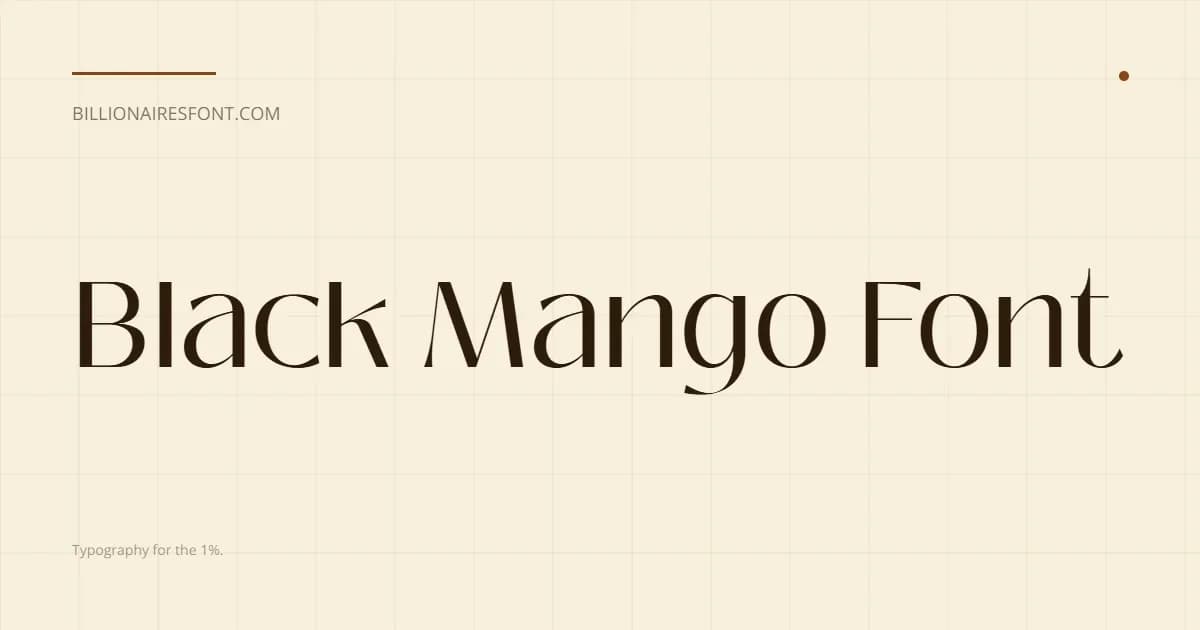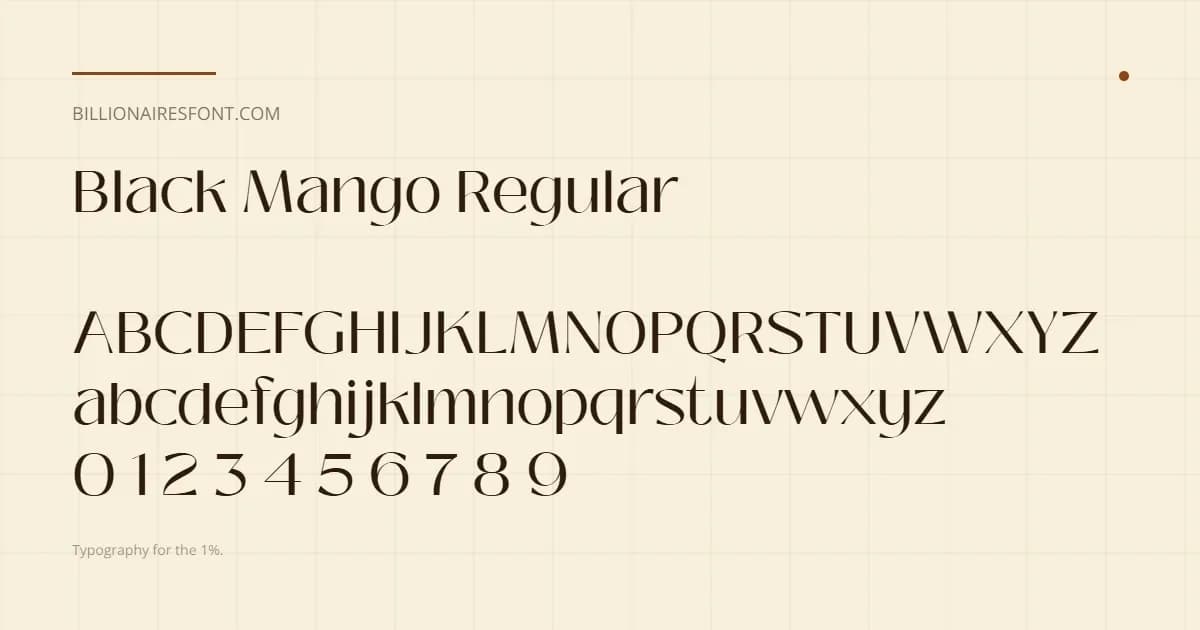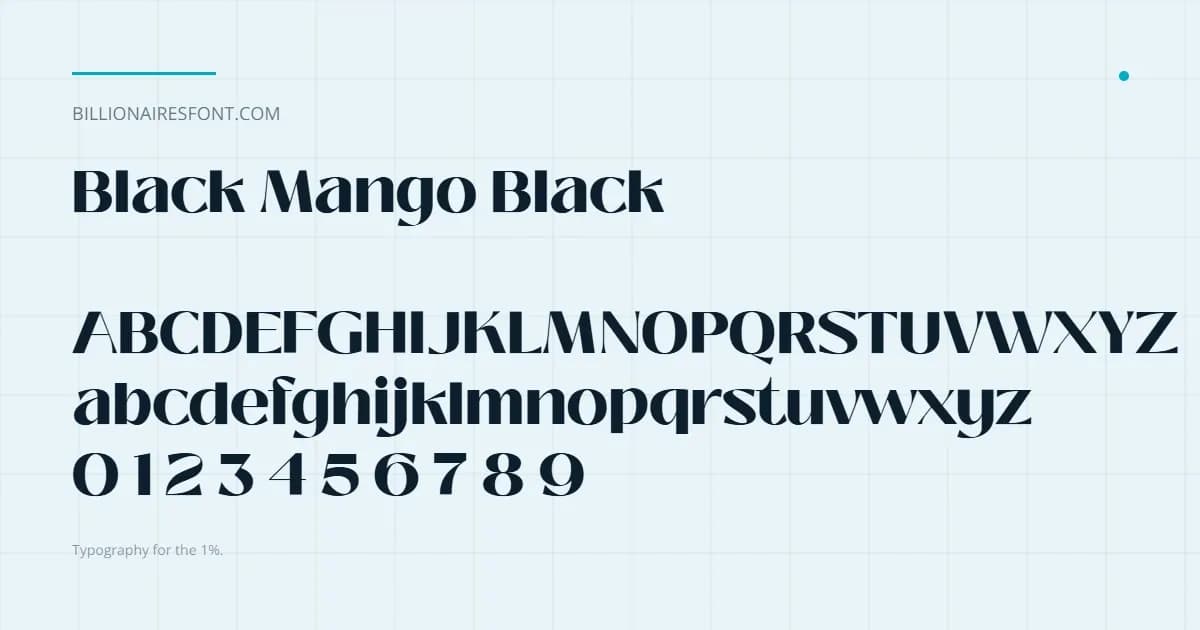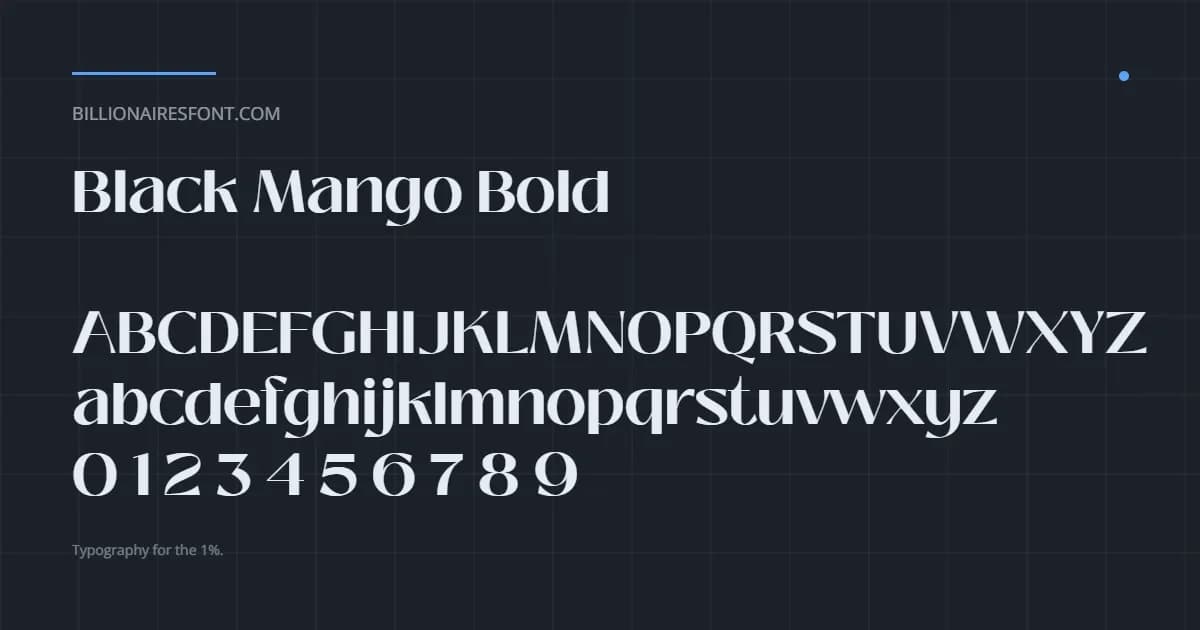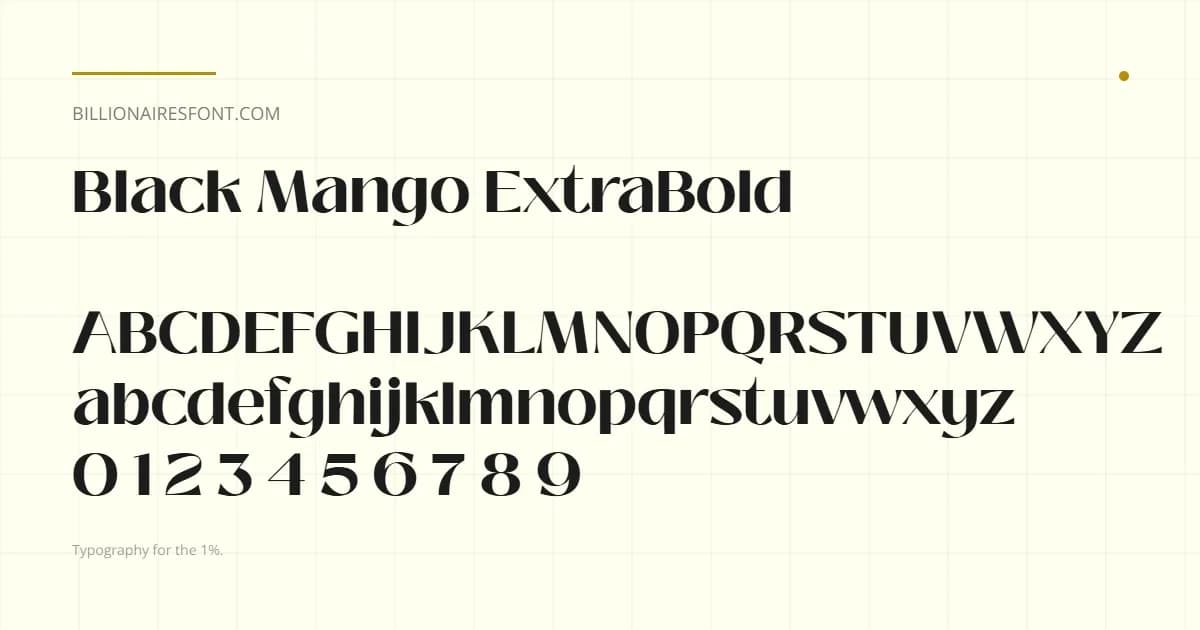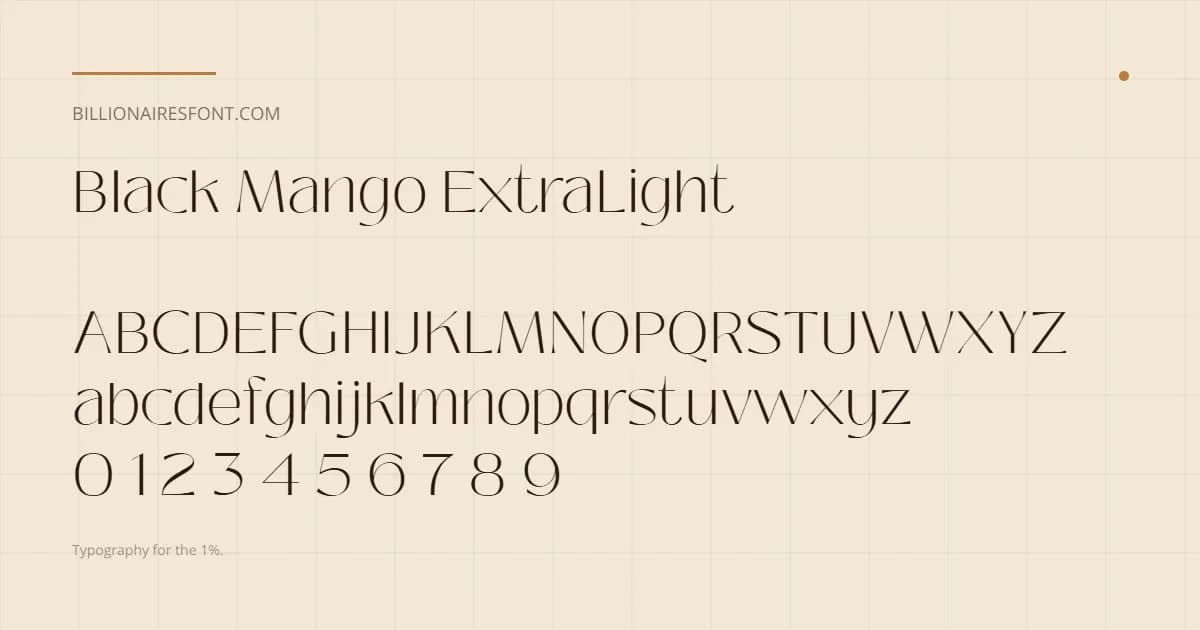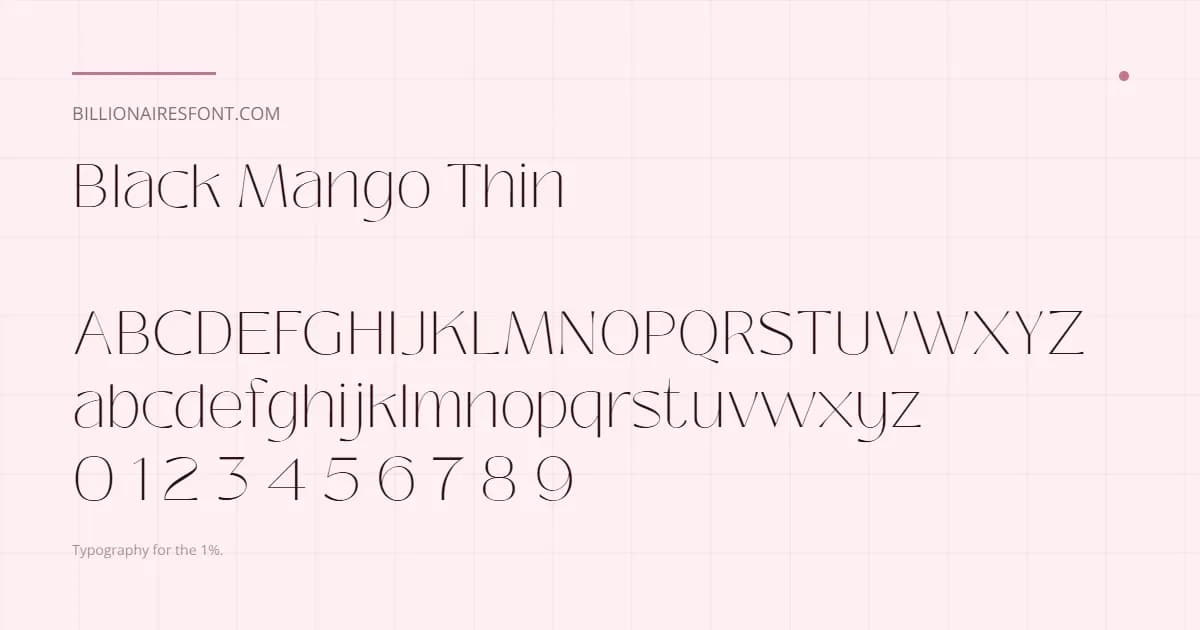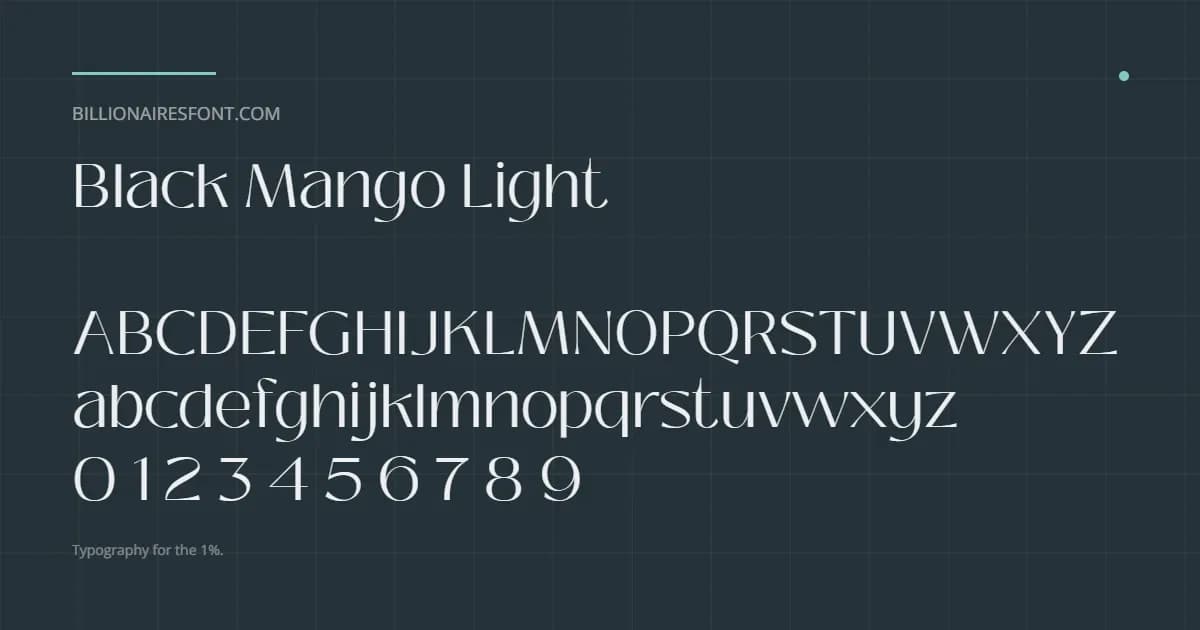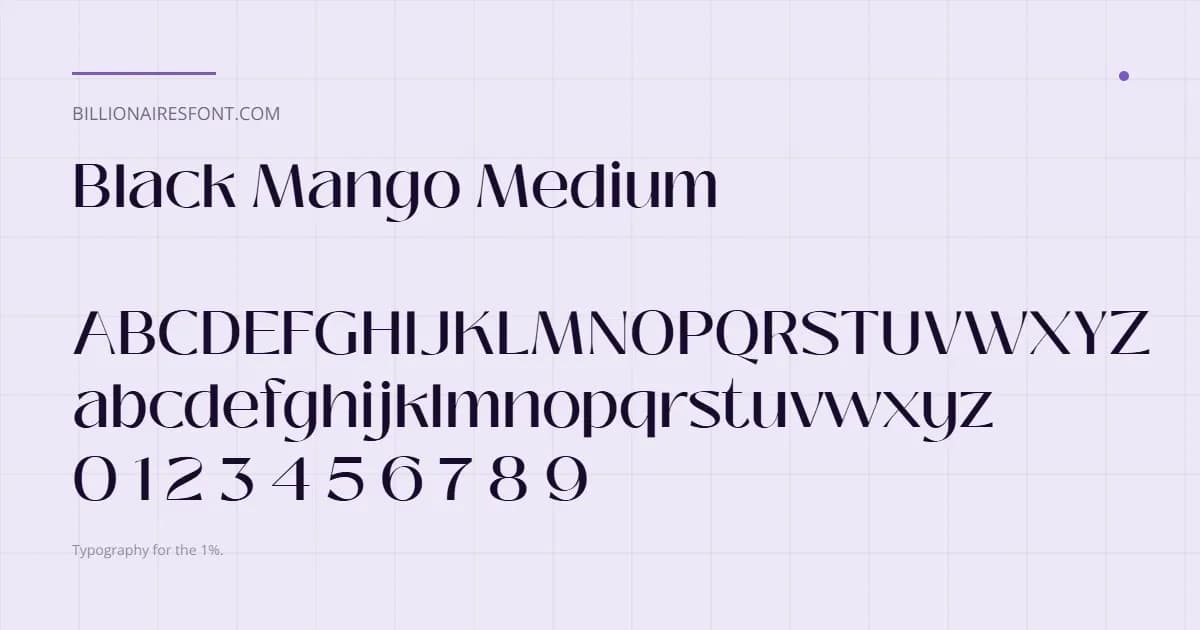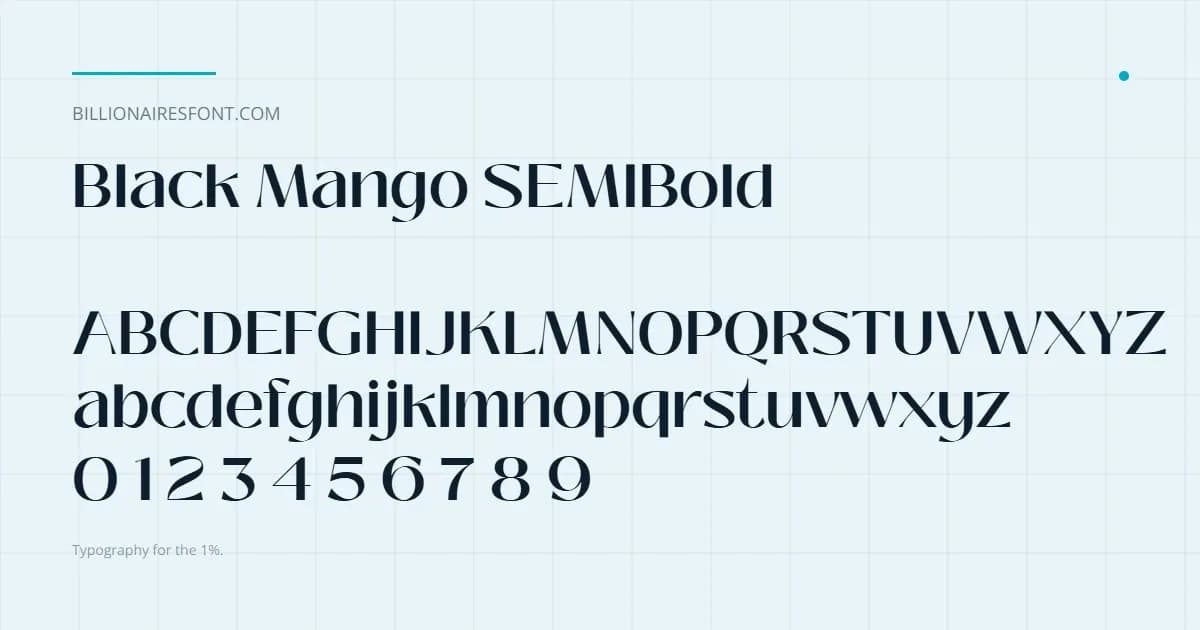
Nine static weights, a variable cut, and a stylistic-alternate set that swaps the shapes of more than a dozen letters. Black Mango operates less like a single typeface and more like a branding kit. Designed by Kadek Mahardika at Creative Media Lab, the Bali-based independent foundry, and released in late 2020, the family runs from a hairline
Thin to a heavy Black and lands in the contemporary fashion-sans tradition rather than the workhorse-grotesque or humanist-text camps. The foundry's own description is direct: a modern, minimalist family for branding, beauty, and web design.
There's also no italic in the static weights, and no small-caps feature in the OpenType set. For long-form body text, paragraphs, or technical material, run something better suited underneath.